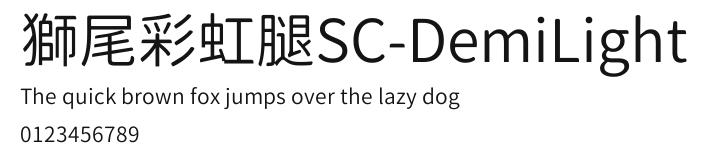
獅尾彩虹腿SC-DemiLight Preview
• Font Name: 獅尾彩虹腿SC-DemiLight
• Font Style: DemiLight
• Full Font Name: 獅尾彩虹腿SC-DemiLight
About 獅尾彩虹腿SC-DemiLight.ttf
獅尾彩虹腿SC-DemiLight.ttf is a modern, elegant sans-serif font designed for ultimate readability and visual harmony. Perfect for branding, headlines, web design, and print materials.